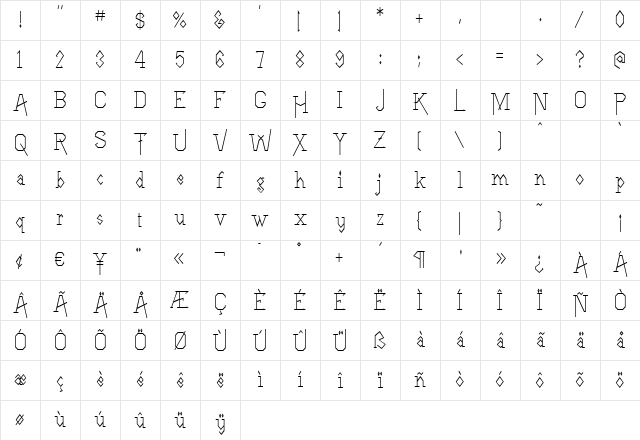
LineDrive Regular
LineDrive Family
Design Context for LineDrive
LineDrive is a composed and adaptable typeface that performs quietly and consistently across a wide range of design contexts.